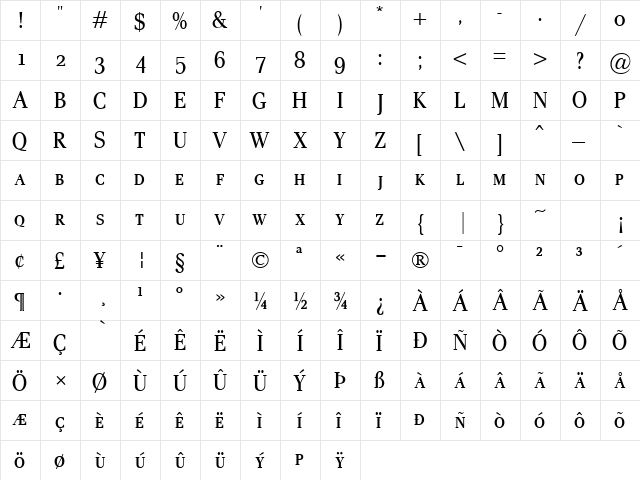
Pax Cond SC Regular
Pax Cond SC offers clean, dependable letterforms without strong stylistic allegiance, making it a practical choice for designers who need flexibility. Its narrow stance lets it pack a punch even in space-constrained designs.